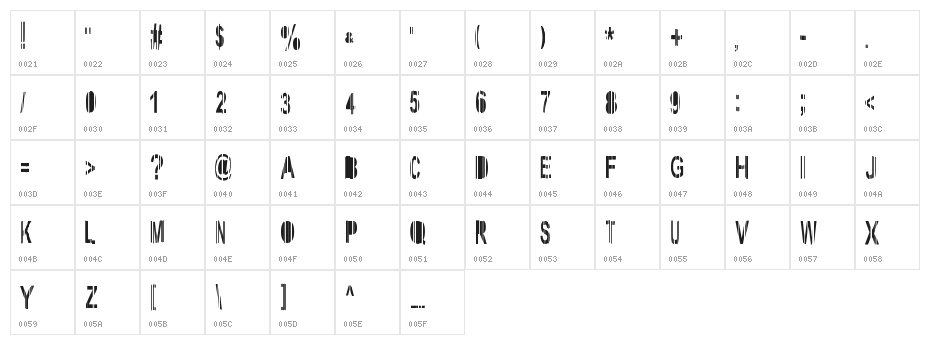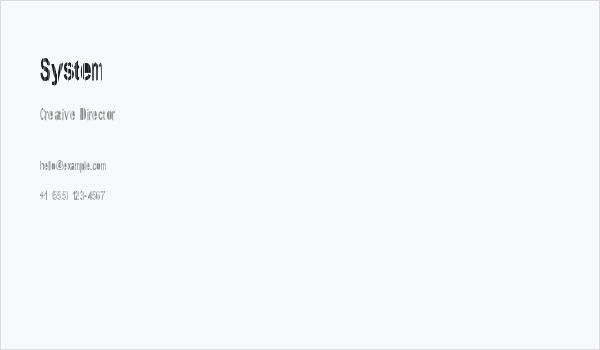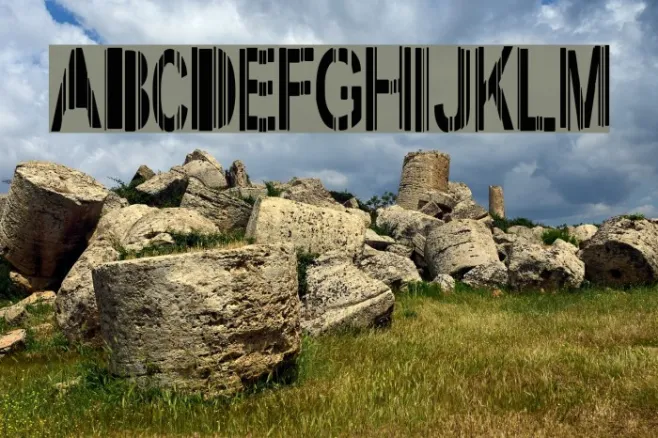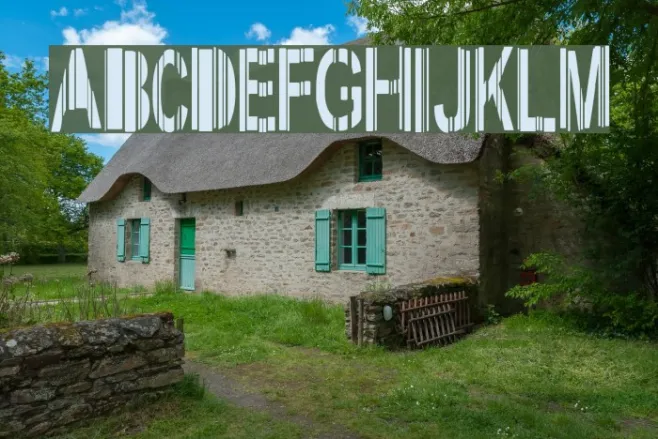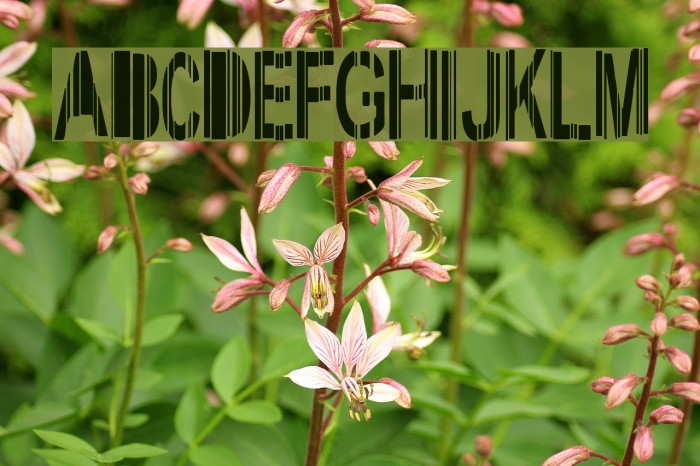
System Font
System Description
This font features a bold and dynamic design with a distinct striped pattern running through each character. The uppercase and lowercase letters, as well as numbers and special characters, are crafted with a unique blend of geometric precision and artistic flair. The vertical stripes create a sense of movement and energy, making it ideal for eye-catching designs. The font's boldness is balanced by its intricate detailing, offering a modern and edgy aesthetic. It stands out in any design context, providing a strong visual impact while maintaining readability.
| Proposed Projects | Ideal for posters, branding, album covers, and any project requiring a striking visual impact. |